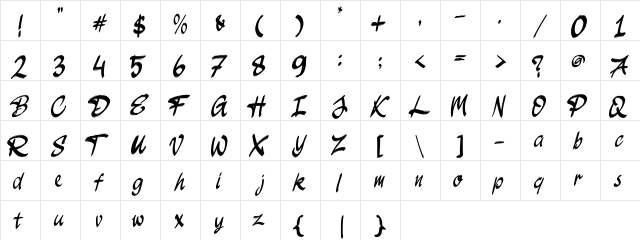
JakAs Regular
Design Context for JakAs Typeface
JakAs is a composed and adaptable typeface that performs quietly and consistently across a wide range of design contexts.